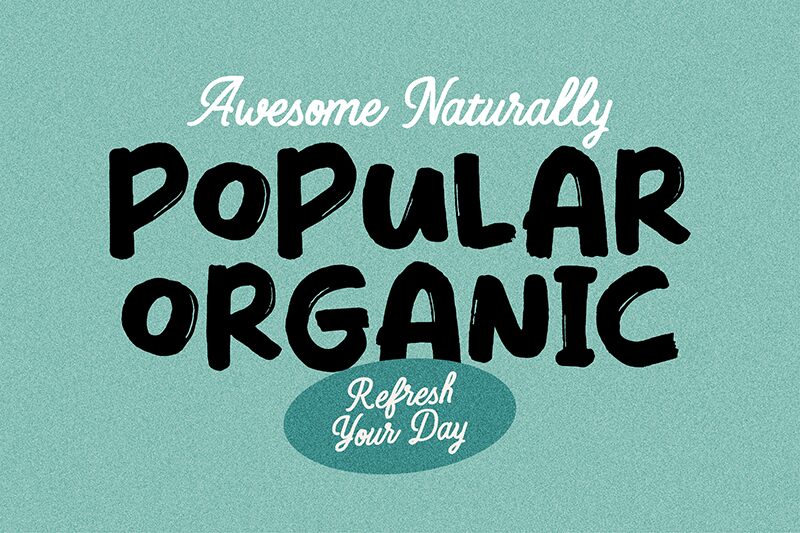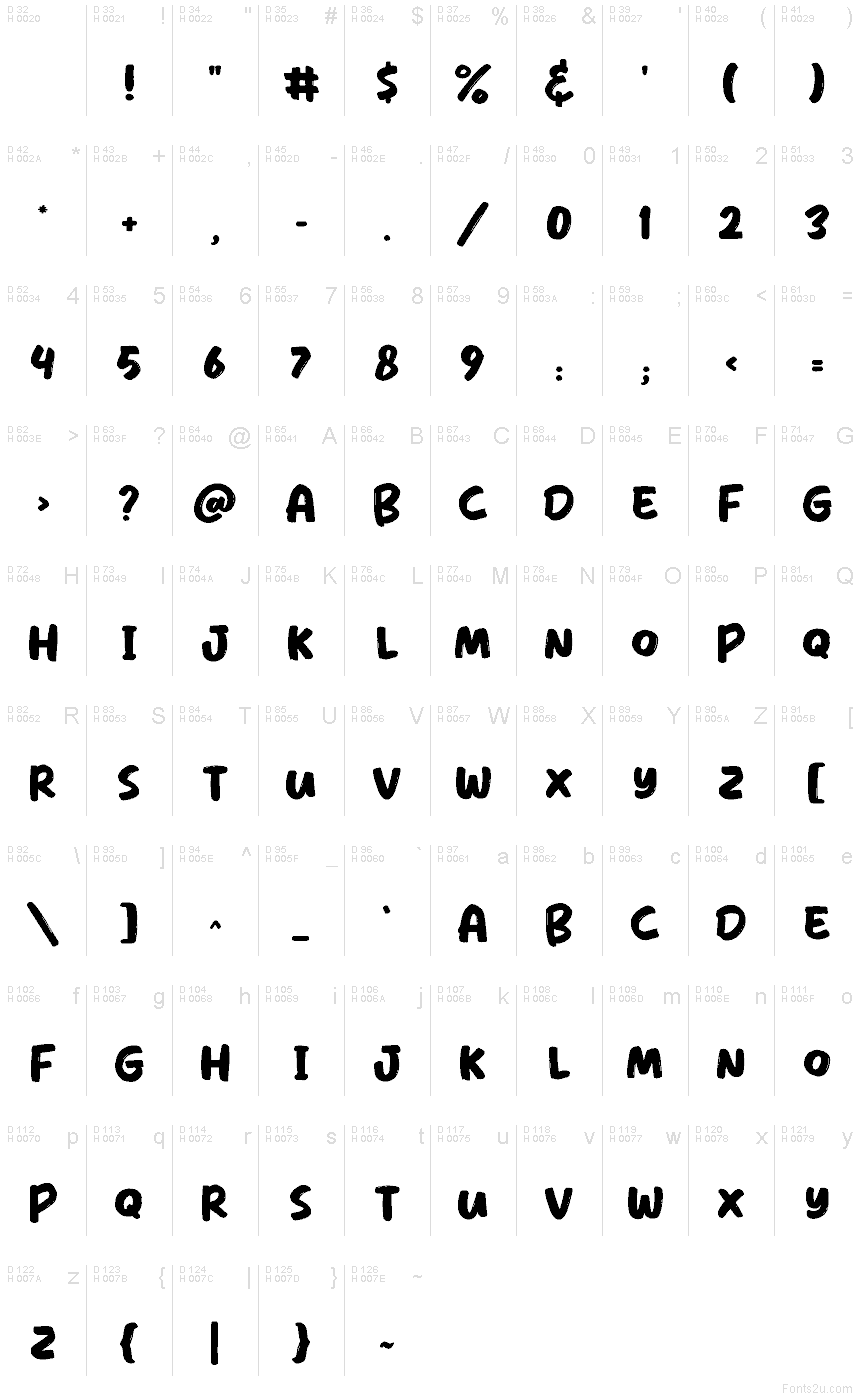
Risperd Marfiel Display
Risperd Marfiel Display font by Riyadh Rahman is a free brush font that feels like thick, inky marker strokes squeezed onto the page. The tall, narrow letters stack closely together, forming a bold, chunky rhythm that reads loud and clear even at a glance. Rounded corners and slightly wobbly shapes give it a hand-drawn, human warmth—more like graffiti on a wall or a DIY poster than something polished and sterile.
Using Risperd Marfiel Display, you get a lively, high-impact voice that shines on posters, YouTube thumbnails, snack packaging, children’s book covers, streetwear graphics, and social media banners. This free font loves to be oversized, where its dense texture really pops, and it pairs easily with a simple geometric sans serif for subheads or body copy. When you need headline text that looks bold, friendly, and a little bit wild, this brush typeface does the heavy lifting.